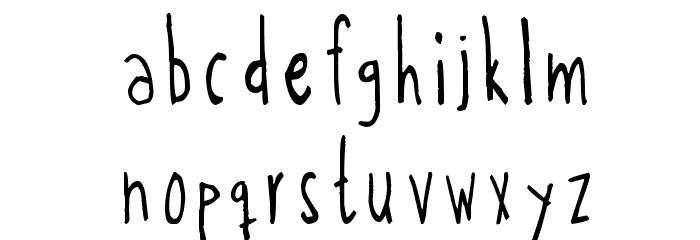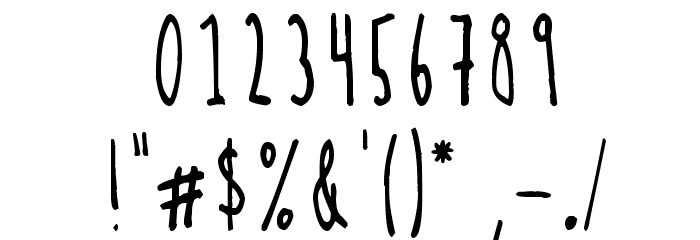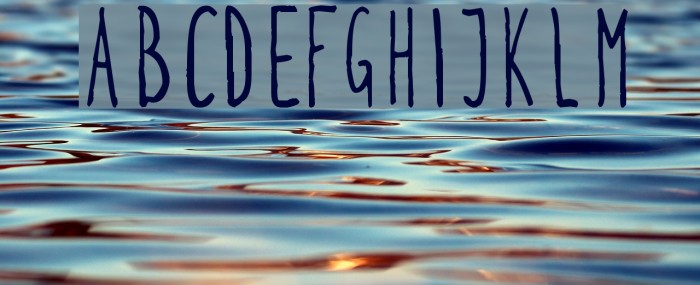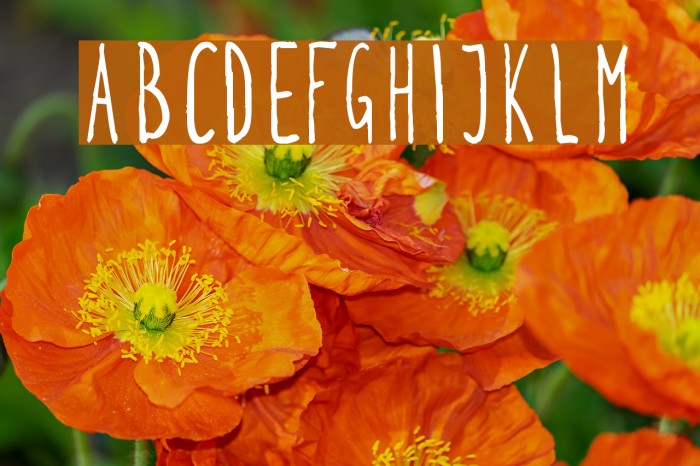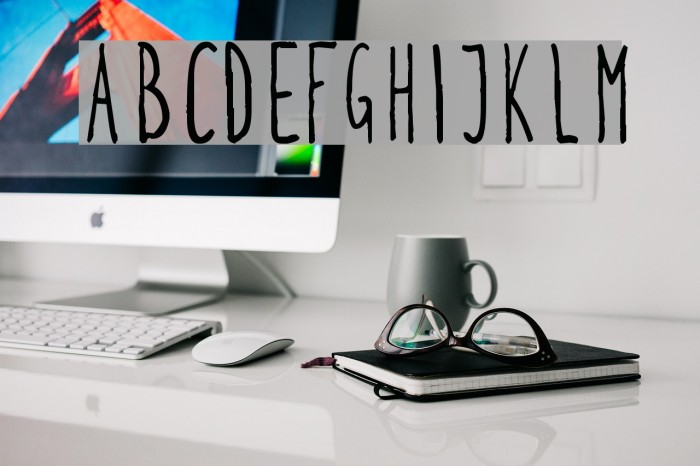
Kohicle25 Font
This font features a playful and hand-drawn aesthetic, characterized by irregular strokes and a casual, informal style. The letters have a slightly uneven baseline, adding to the whimsical feel. The uppercase letters are tall and narrow, while the lowercase letters maintain a consistent height with a slightly wider appearance. Numbers and special characters follow the same playful design, making the font suitable for creative and artistic projects. The overall look is reminiscent of handwriting, with a touch of spontaneity and charm.
A playful, hand-drawn font with irregular strokes and a whimsical style.
- Proposed Projects: Ideal for children's books, greeting cards, creative posters, and artistic branding.
- Use Case: Headlines, Logos, Creative projects